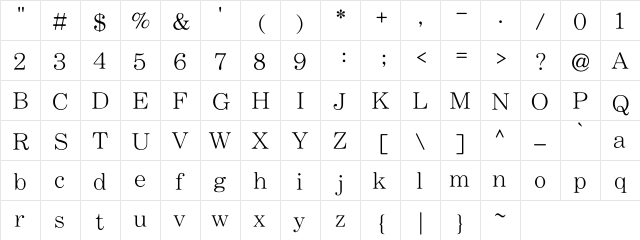
HanWangMingMediumPoIn1 Regular Font Preview
HanWangMingMediumPoIn1 Regular
Design Context for HanWangMingMediumPoIn1 Typeface
HanWangMingMediumPoIn1 offers clean, dependable letterforms without strong stylistic allegiance, making it a practical choice for designers who need flexibility.